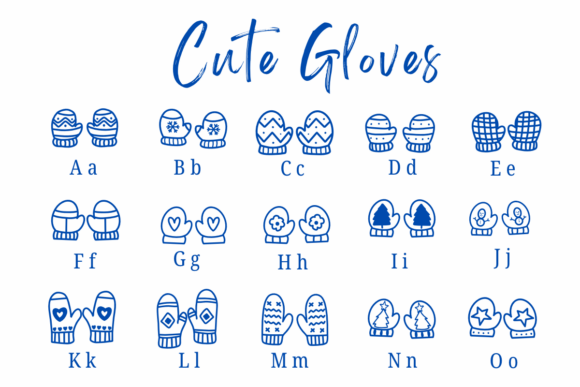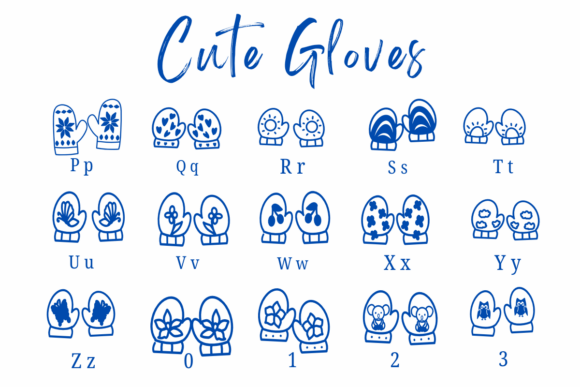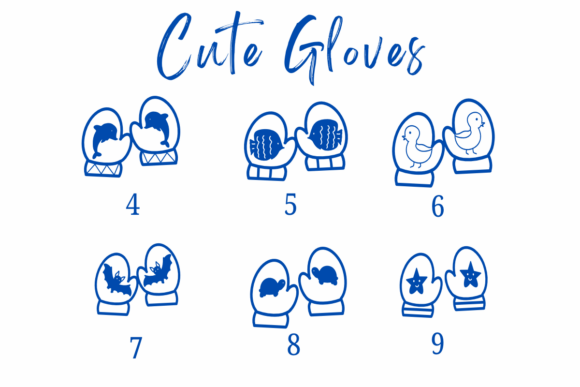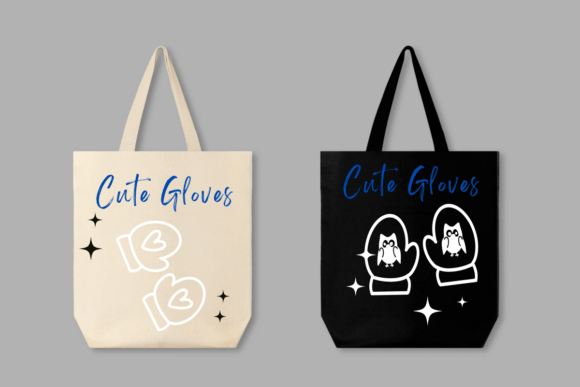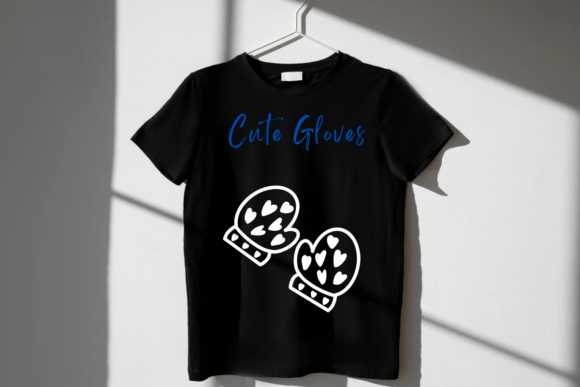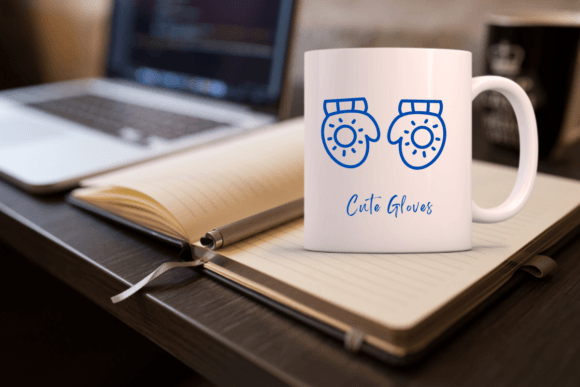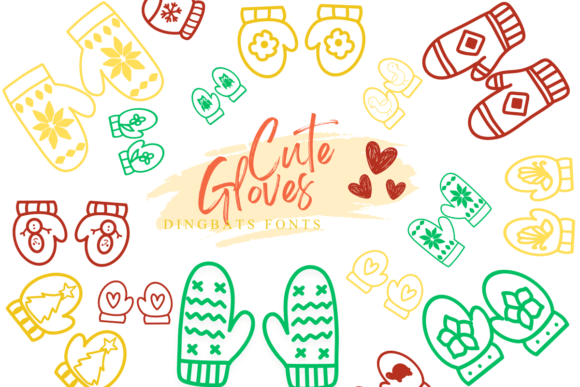
Cute Gloves Font: Add a Touch of Whimsy to Your Creative Projects
Are you a designer, crafter, or DIY enthusiast looking for a unique and playful font to elevate your creative projects? Look no further than Cute Gloves, a charming dingbats font with a sketched style that’s sure to capture the hearts of crafty individuals and designers alike.
What is Cute Gloves Font?
Cute Gloves is a dingbats font that features a delightful, hand-sketched design. The font is characterized by its whimsical and playful aesthetic, making it perfect for a wide range of creative projects, from wedding invitations and DIY crafts to decorations, logos, and more.
Key Features of Cute Gloves Font
- Unique Sketched Style: Cute Gloves boasts a distinctive, hand-sketched design that adds a touch of personality to any project.
- Dingbats Font: As a dingbats font, Cute Gloves features a collection of illustrations and symbols that can be used to add visual interest to your designs.
- Playful and Whimsical: The font’s playful and whimsical nature makes it perfect for projects that require a lighthearted and creative touch.
- Versatile: Cute Gloves can be used for a wide range of projects, from digital designs to print materials.
Uses for Cute Gloves Font
Cute Gloves is an incredibly versatile font that can be used for various creative projects, including:
- Wedding Invitations: Add a touch of whimsy to your wedding invitations and save the dates with Cute Gloves.
- DIY Crafts: Use Cute Gloves to create unique and personalized DIY crafts, such as handmade cards, gift tags, and decorations.
- Logos and Branding: The font’s playful and creative nature makes it perfect for logos and branding projects that require a unique and eye-catching design.
- Decorations: Use Cute Gloves to create custom decorations, such as garlands, banners, and signs, for parties, events, and special occasions.
Tips for Using Cute Gloves Font
To get the most out of Cute Gloves, here are some tips to keep in mind:
- Experiment with Different Sizes: Play around with different font sizes to achieve the desired effect and add visual interest to your designs.
- Combine with Other Fonts: Pair Cute Gloves with other fonts to create a unique and eye-catching design.
- Use for Headers and Titles: The font’s playful nature makes it perfect for headers and titles, adding a touch of personality to your designs.
Cute Gloves is a delightful dingbats font that can add a touch of whimsy and creativity to your projects. With its unique sketched style, playful aesthetic, and versatility, this font is perfect for designers, crafters, and DIY enthusiasts looking to elevate their creative projects. Whether you’re working on a wedding invitation, DIY craft, or logo design, Cute Gloves is sure to inspire and delight.